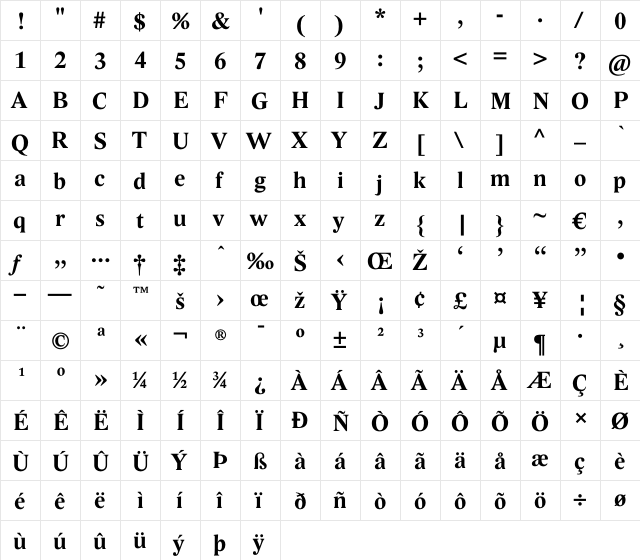
Lido STF CE Bold
Design Context for Lido STF CE Typeface
Lido STF CE is a composed and adaptable typeface that performs quietly and consistently across a wide range of design contexts. Its bold stroke weight gives it real presence on the page.
Pro Tip: Use Lido STF CE in both headline and body roles to test its range before committing to a single application.